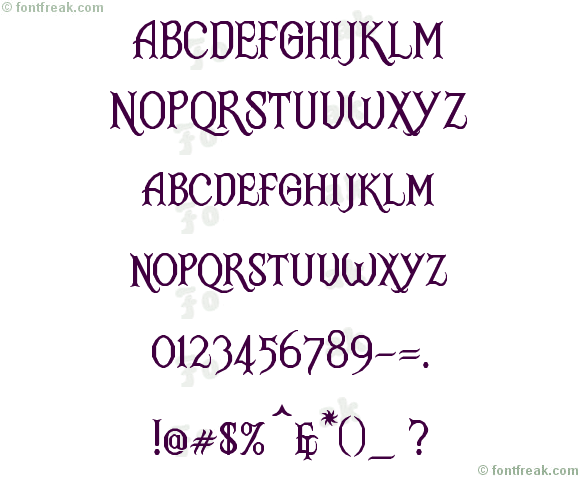
RM Ginger Regular
About RM Ginger
RM Ginger, created by Ray Meadows in 2009, is a distinctive decorative font that exudes charm and personality. With its unique blend of playful curves and elegant flourishes, this font showcases a visually engaging style that is both inviting and sophisticated. The design features a moderate stroke weight and a balanced contrast, allowing for clear legibility while maintaining its artistic flair. The spacing between characters is thoughtfully considered, giving the typeface an airy feel that enhances readability.
This versatile font is particularly well-suited for a variety of creative projects. RM Ginger shines in wedding invitations, where its whimsical yet refined aesthetic adds a touch of romance. It is also an excellent choice for restaurant menus, as it can evoke a warm atmosphere that complements culinary delights. Additionally, graphic designers can leverage RM Ginger for eye-catching movie posters, while content creators may find it perfect for blog headers or social media graphics that require a distinctive touch. Small business owners looking to establish a memorable brand identity will also appreciate the unique character of this font.
What truly sets RM Ginger apart is its ability to blend playful elegance with practicality. The font captivates viewers while ensuring that the message remains clear and impactful. Whether you are designing for a formal event or a casual gathering, the RM Ginger font free download offers a delightful option that stands out in any design context.